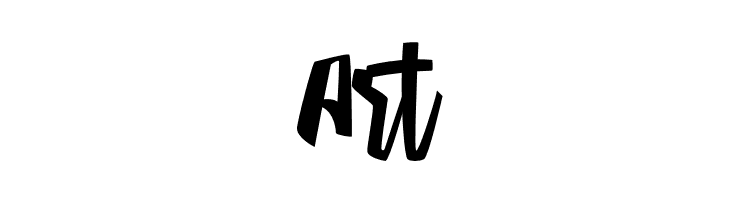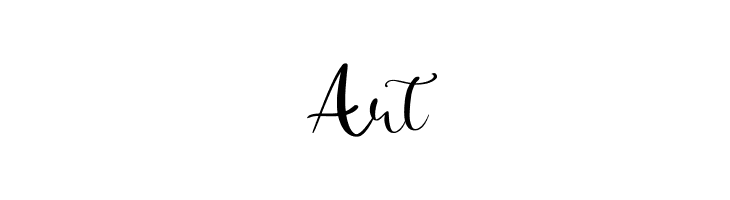
A modern, handwritten font with fluid, connected strokes and a personal touch.
A playful and elegant cursive font with flowing, interconnected letters.
A playful, handwritten font with fluid, connected letterforms and a casual style.
A playful, handwritten cursive font with smooth, flowing curves.
A graceful script font with fluid, interconnected strokes and ornate flourishes.
A graceful and fluid cursive script font with elegant, interconnected strokes.
A bold, playful font with rounded, smooth characters and a whimsical style.
An artistic font with sharp, angular strokes and dynamic flow, resembling calligraphic brushwork.
A bold, angular, and decorative font with a graffiti-like style.
A bold, decorative font with geometric and vintage elements, perfect for playful designs.
A bold, brush-style handwritten font with dynamic and fluid strokes.
A playful, bold handwritten font with a whimsical and friendly style.
A bold, playful font with thick, irregular strokes and a hand-drawn feel.
A playful, bold font with a chunky, irregular style and a whimsical, hand-drawn appearance.
A playful and bold font with thick, uniform strokes and rounded edges.
A playful, hand-drawn font with a whimsical and friendly style.
A dynamic and expressive script font with fluid, flowing letterforms.
A modern, high-contrast decorative font with bold geometric elements.
A sophisticated, elegant handwritten font with fluid, cursive strokes.
A bold, brush-style font with dynamic and expressive strokes.
A playful, handwritten font with bold, rounded strokes and a whimsical style.
A playful, bold handwritten font with a whimsical and friendly appearance.
A dynamic script font with fluid, cursive strokes and a brush-like appearance.
A Gothic-inspired font with sharp, angular lines and historical flair.
A bold, Gothic-style font with sharp, angular lines and a modern twist.
A bold, energetic script font with a dynamic, handwritten style.
A bold, expressive brush-style font with dynamic, hand-painted strokes.
A bold, playful handwritten font with expressive strokes.
A bold, expressive handwritten font with fluid strokes and a modern, playful style.